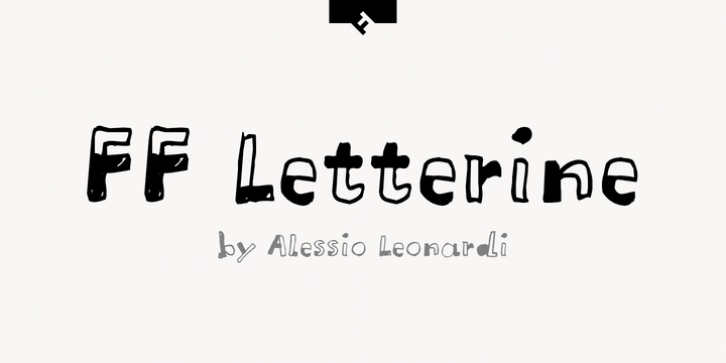
FF Letterine downloadDesigner: Alessio Leonardi
Publisher: FontFont
Italian type designer Alessio Leonardi created this display FontFont in 1995.
The family has 7 weights, ranging from Regular to Black and is ideally suited for festive occasions, film and tv, music and nightlife as well as poster and billboards.
FF Letterine provides advanced typographical support with features such as ligatures, alternate characters, and case-sensitive forms.
It comes with proportional oldstyle and proportional lining figures.